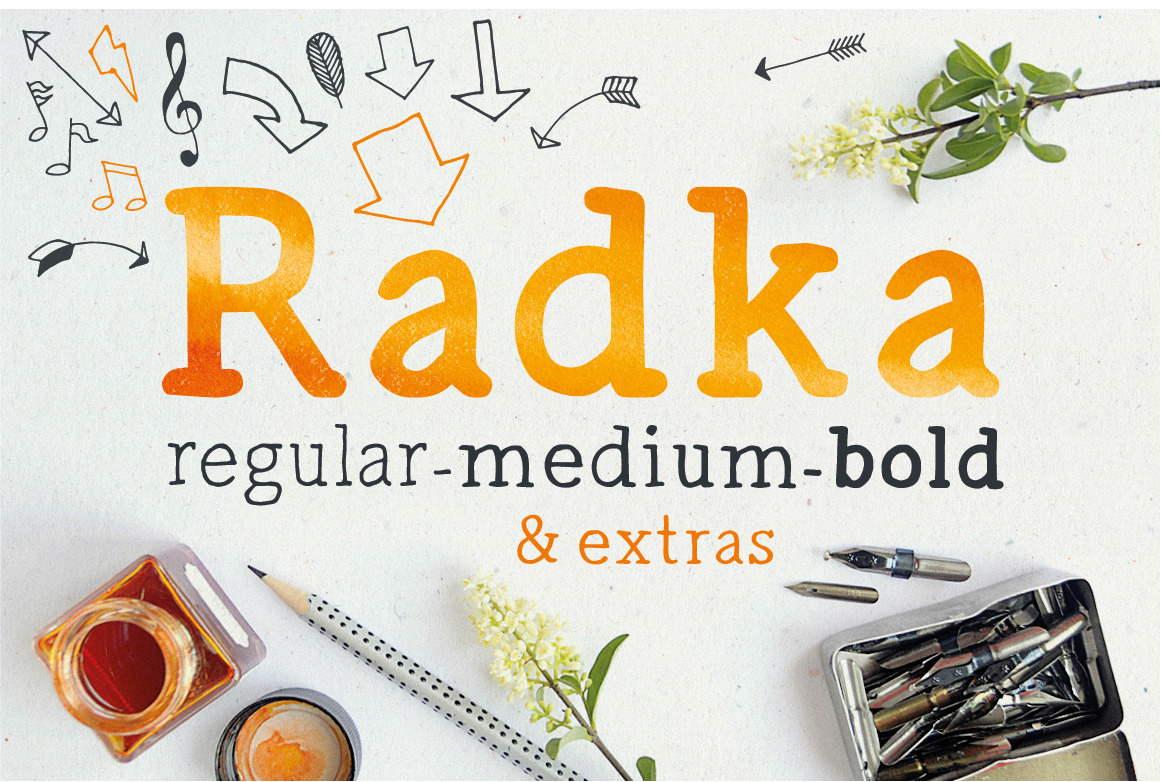
Radka: handmade font family + extras
Radka is serif, tidy and elegant. It's an hand-lettered font family with special extras. So, if you're looking for something pleasant that gives your work illustrative feel, you're on the right way. Radka comes in four styles, include uppercase, lowercase and all english characters.
- Radka Regular
- Radka Italic
- Radka Medium
- Radka Bold
Extra content: Collection of doodles like arrows and dividers, to decorate your graphics + set of hand-drawn shapes as a great background for your work. (delivered in vector ai files + transparent png's.)